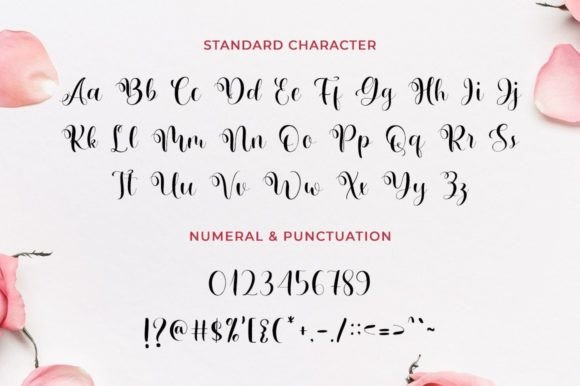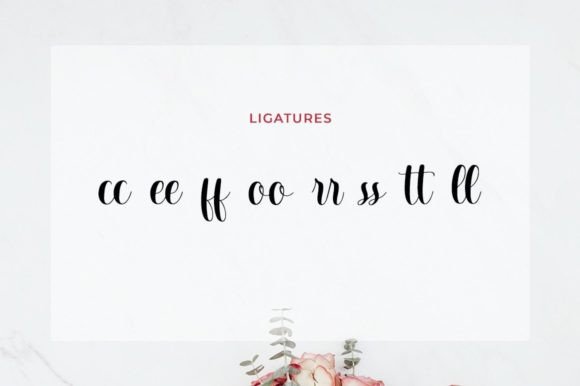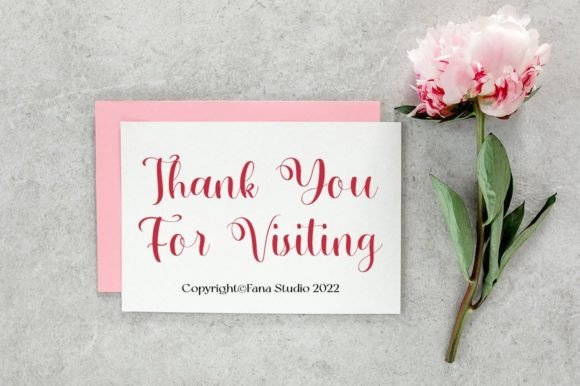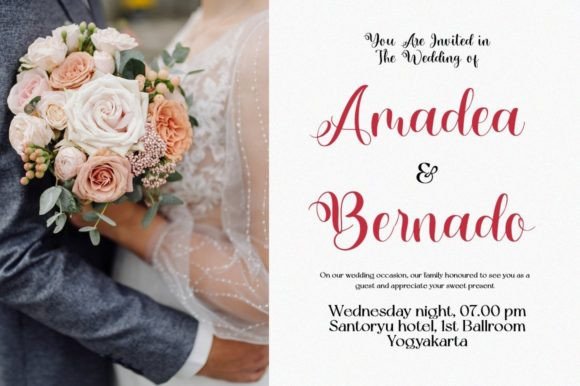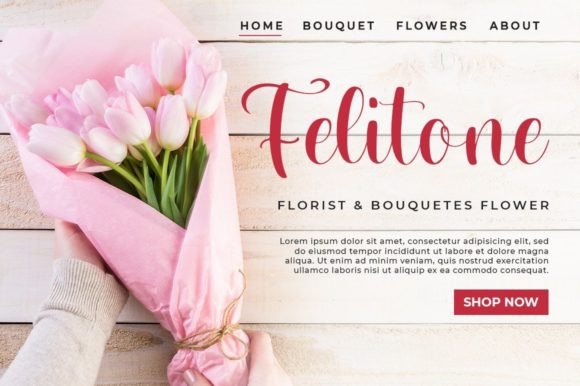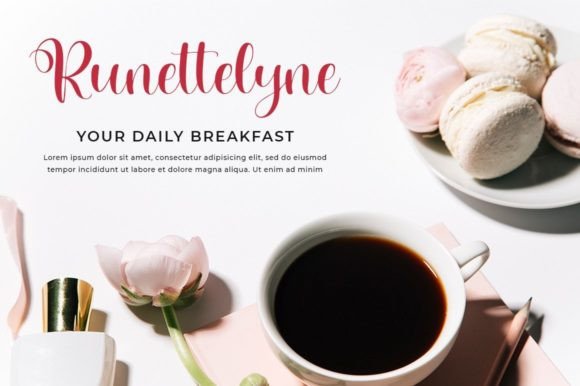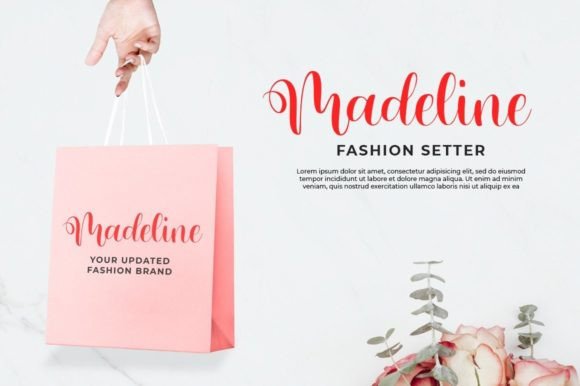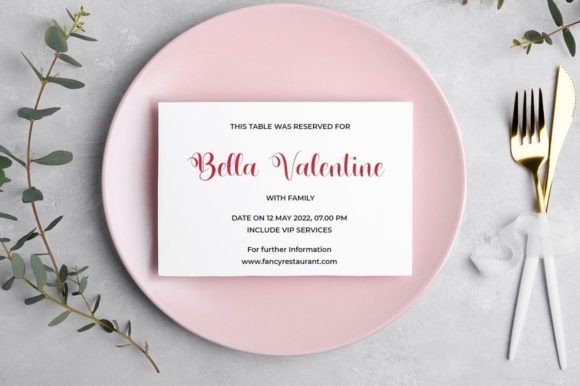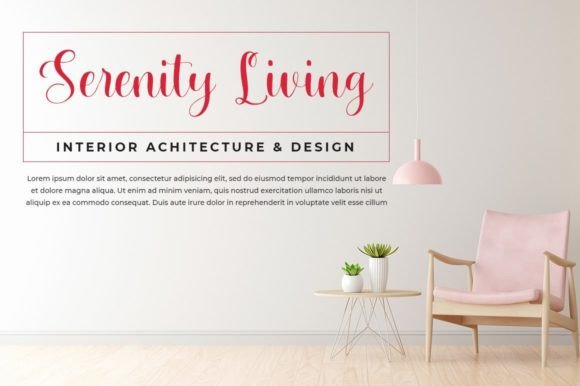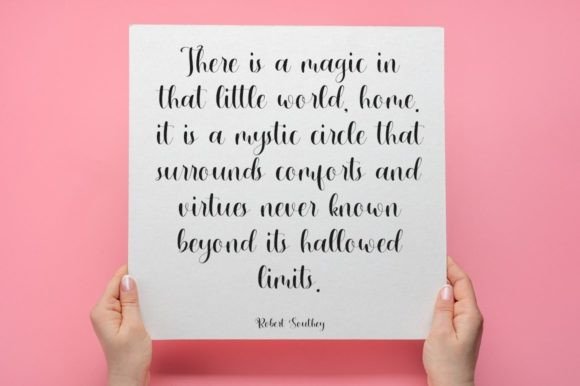
Sanguine Font
About Sanguine Font
“Sanguine” is a stylish font that exudes elegance, class, and modernity. This beautiful script font adds a personal touch to your latest art project, providing a versatile and sophisticated look. The Sanguine Script offers gorgeous typographic elements, making it suitable for a wide array of projects including logos, branding, invitations, stationery, wedding designs, social media posts, advertisements, product packaging, product designs, labels, photography, watermarks, special events, and anything that demands a touch of handwriting taste.
The font’s stylish design ensures that it complements various design contexts, making it adaptable to different creative projects. Its versatility allows it to enhance the visual appeal of your work, whether you’re creating a brand identity, crafting invitations, or designing product packaging.
One notable feature of “Sanguine” is its PUA encoding, providing convenient access to a wealth of amazing glyphs and ligatures. This feature facilitates easy customization and enhancement of your designs, allowing you to create unique and personalized elements effortlessly.
Imagine the impact of “Sanguine” on your branding materials—it transforms the text into a visual representation of elegance and sophistication. In invitations or stationery, it adds a touch of class, setting the stage for refined communication. Applied to social media posts or advertisements, it becomes the key element that elevates the overall aesthetic with its stylish script.
Incorporate “Sanguine” into your design toolkit and explore how it elevates your creative projects. Let its stylish and elegant script be the defining feature that adds a touch of sophistication to your designs. Whether you’re working on digital or print projects, “Sanguine” offers a versatile and expressive solution for your typographic needs.